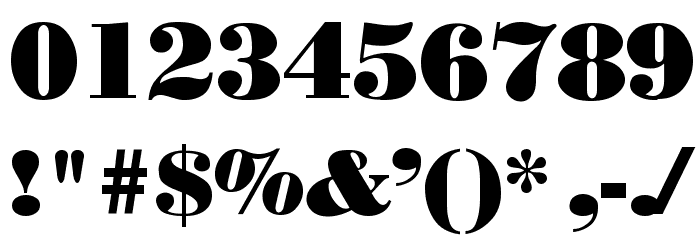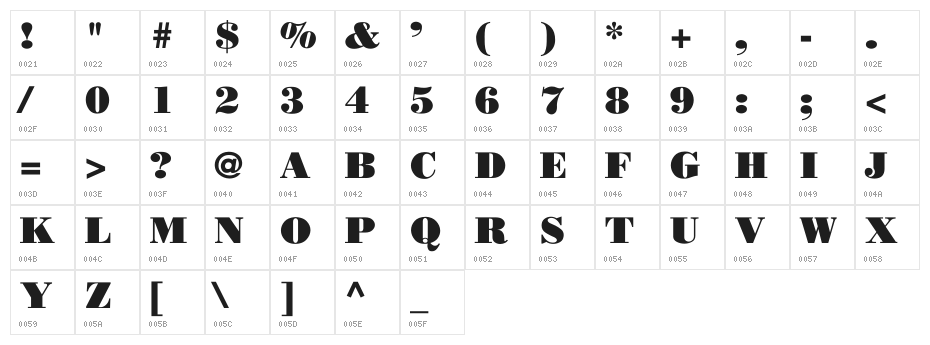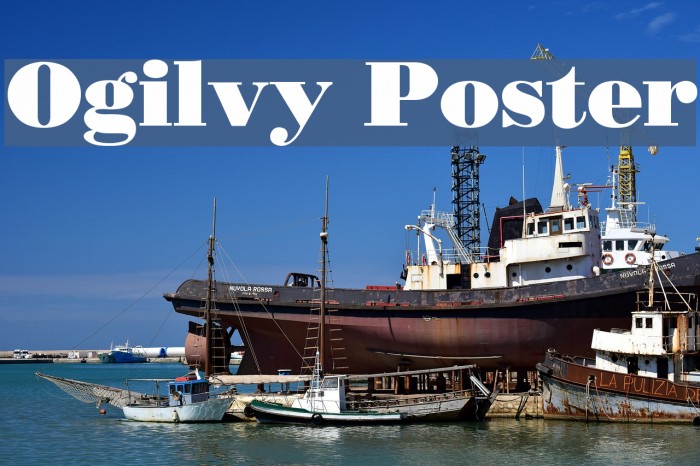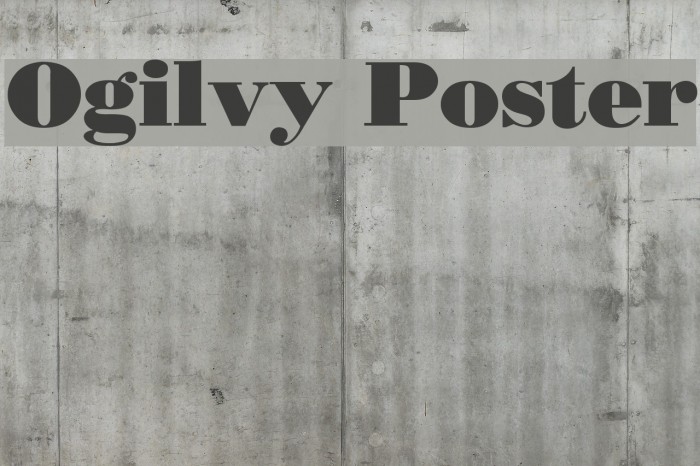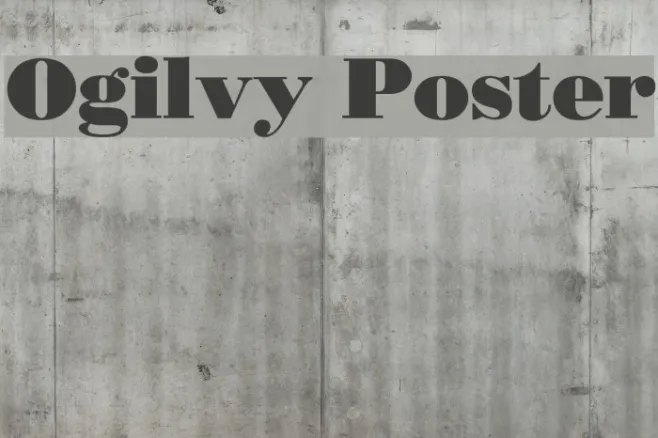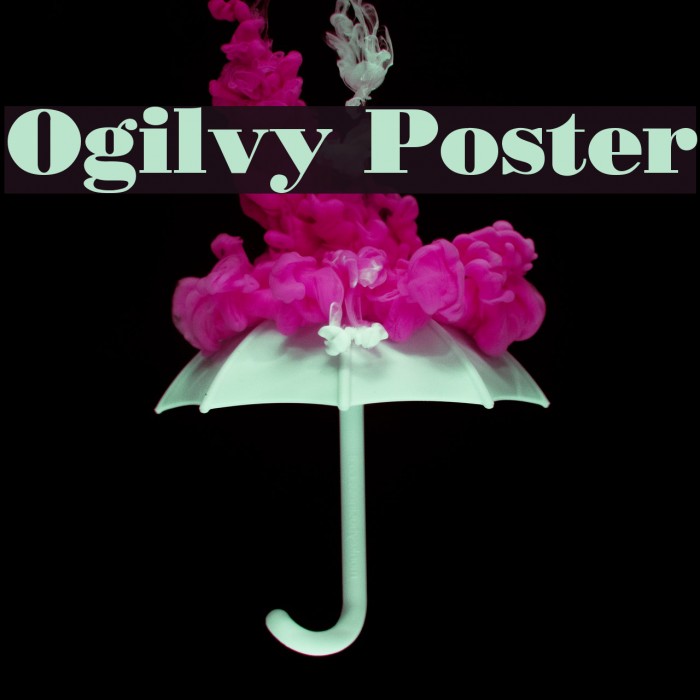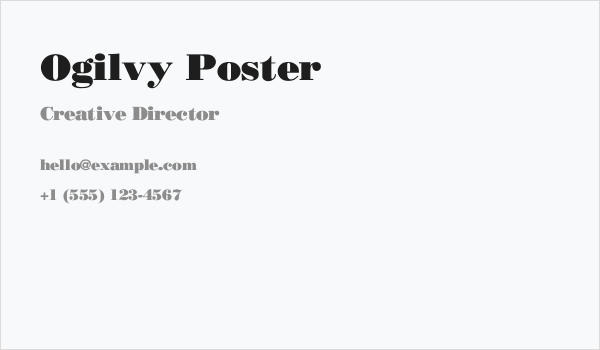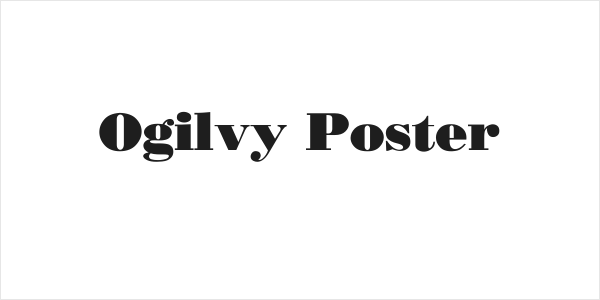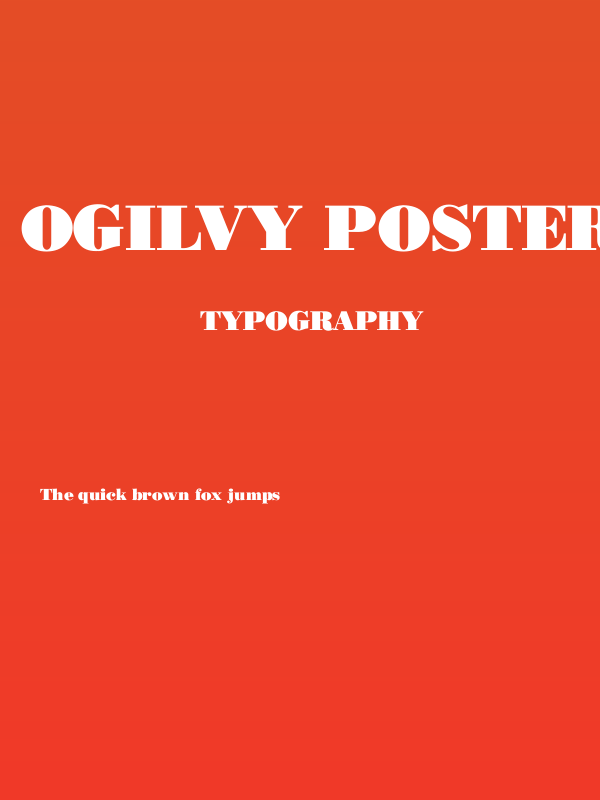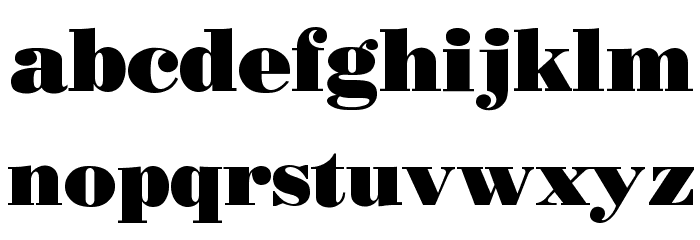
Ogilvy Poster Font
Ogilvy Poster Description
This font features a bold and commanding presence with thick, strong strokes and high contrast between thick and thin lines. The serifs are pronounced and add a classic touch, while the overall design maintains a modern flair. The uppercase letters are particularly striking, with a robust and authoritative feel. The lowercase letters complement the uppercase with a slightly softer appearance, yet they maintain the boldness that characterizes the font. The numerals are equally bold, ensuring they stand out in any design. Special characters are designed with the same attention to detail, providing a cohesive look across all glyphs.